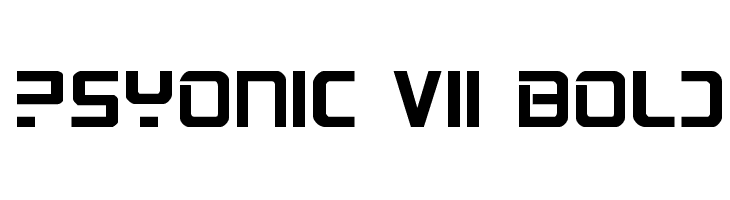
A bold, futuristic font with geometric shapes and sharp angles.
A bold, condensed font with a futuristic, geometric design.
A bold, condensed, and italic font with a futuristic and dynamic style.
A bold, expanded font with a futuristic and geometric design.
A bold, expanded, and italic futuristic font with sleek, angular design.
A bold, italicized font with a futuristic and dynamic design.
A futuristic, geometric, and condensed font with bold lines and sharp angles.
A futuristic, condensed italic font with angular, geometric characters.
A futuristic, geometric font with bold, angular lines and cut-out sections.
A futuristic, italicized font with bold, angular characters and tight spacing.